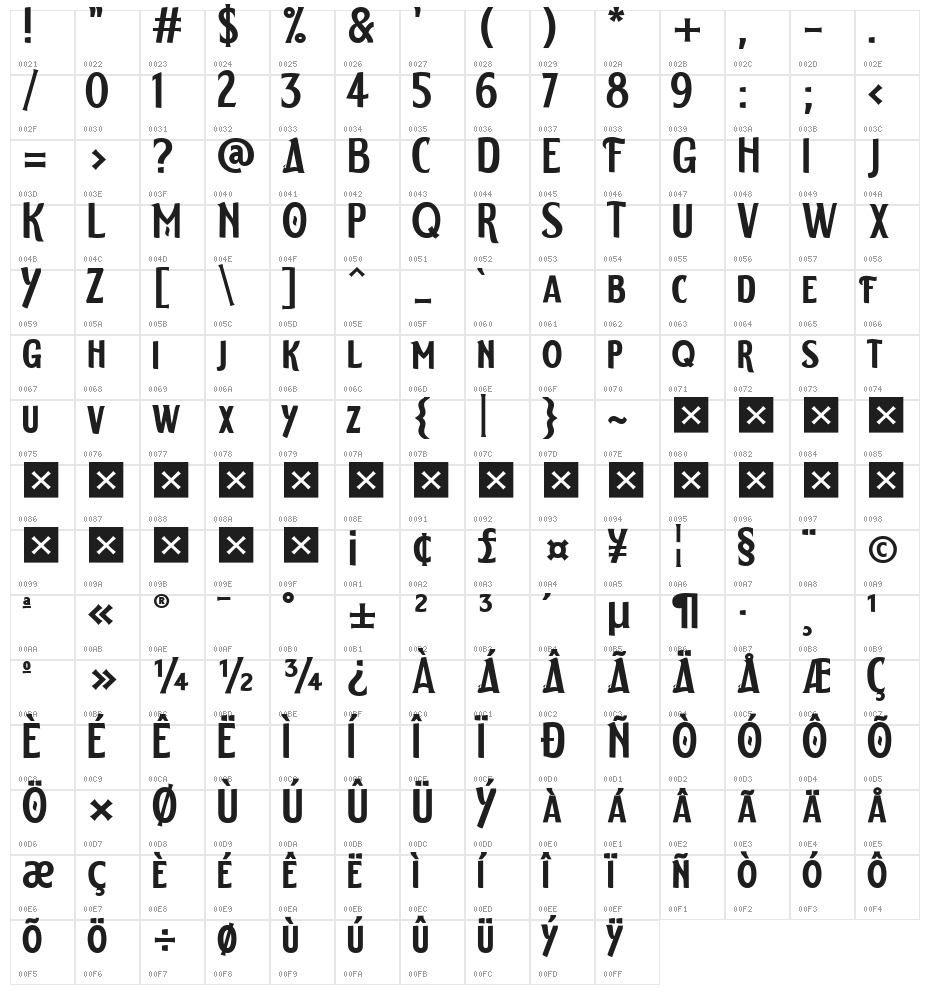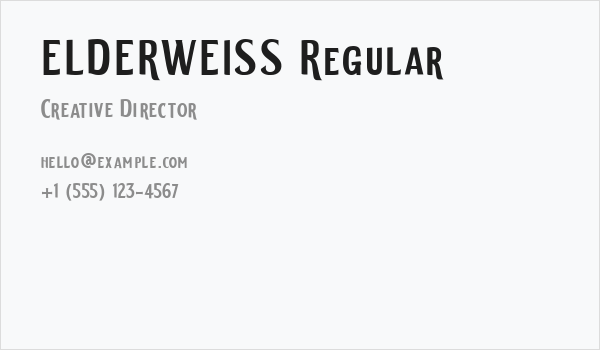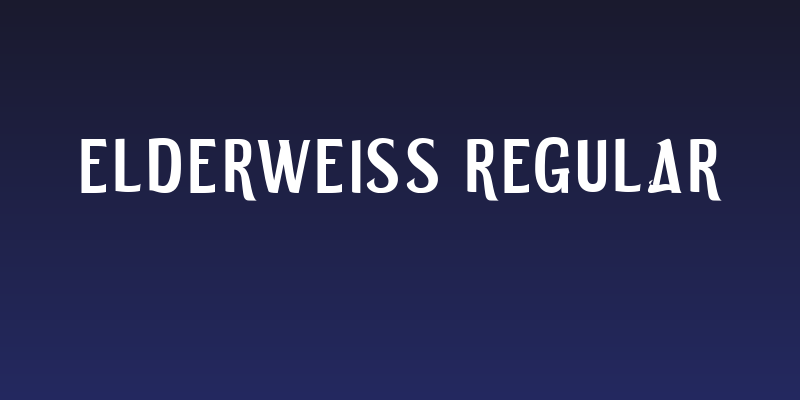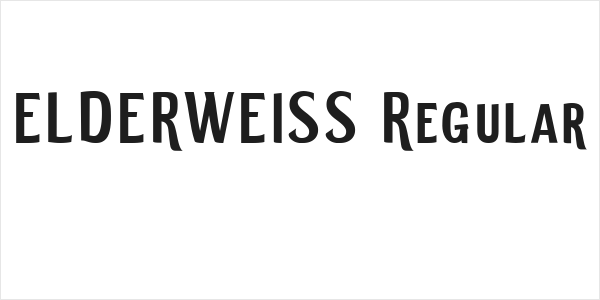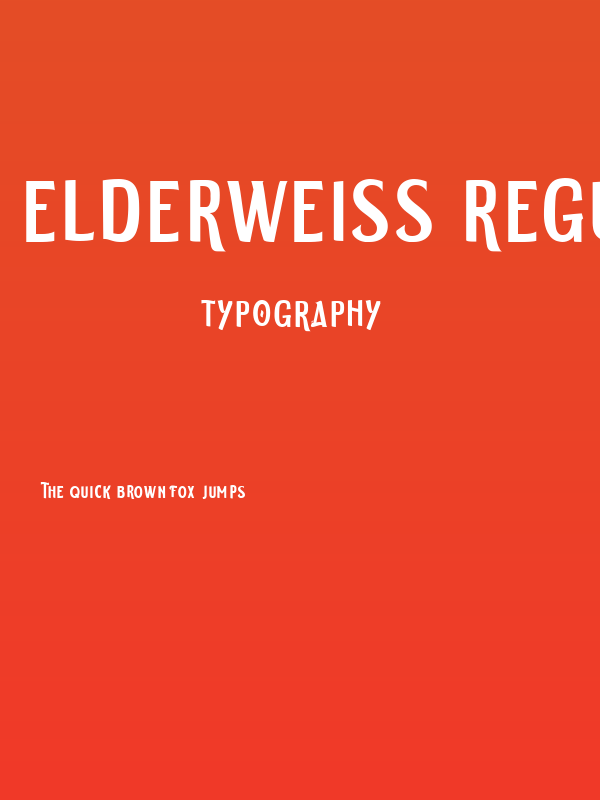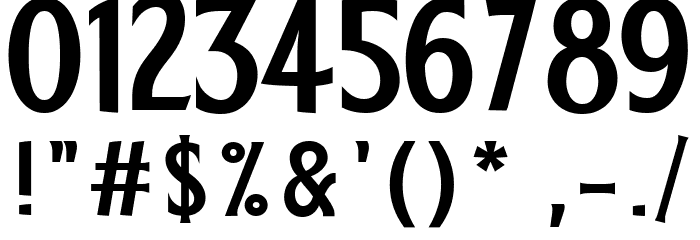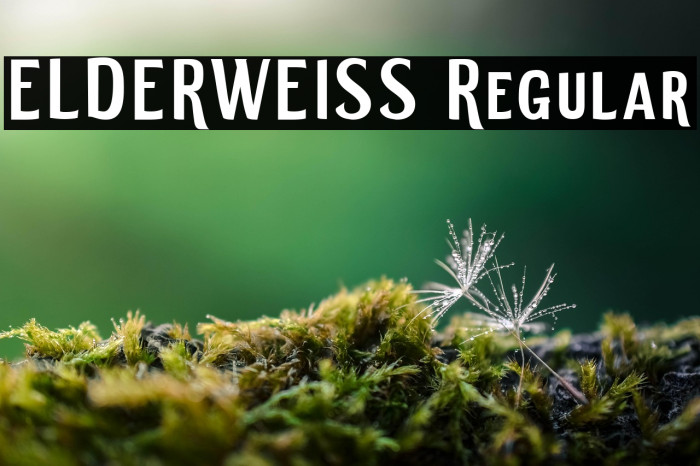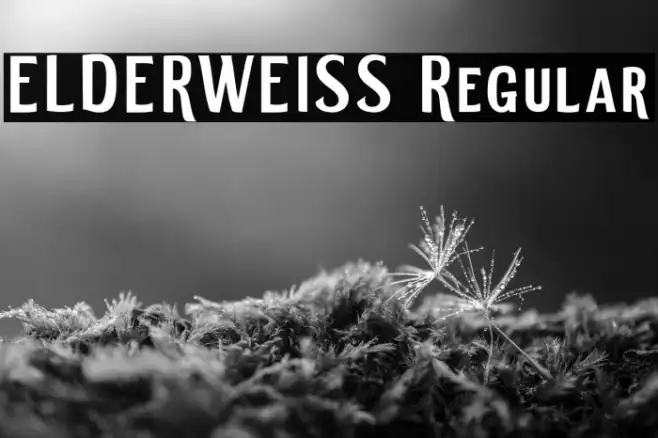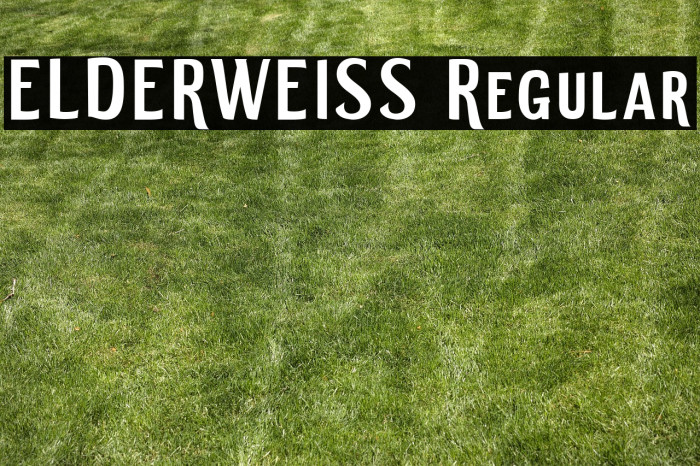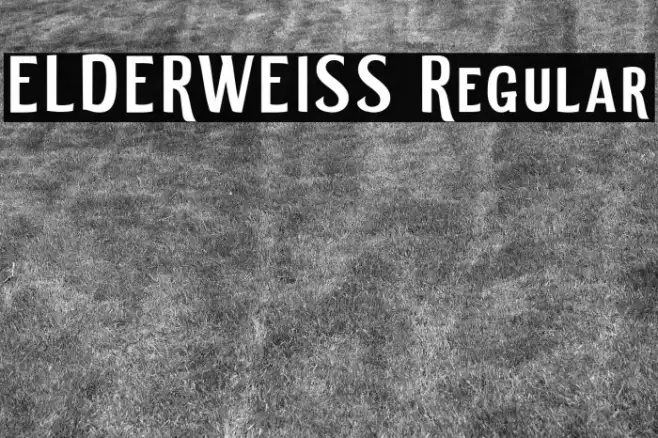
ELDERWEISS Regular Font
ELDERWEISS Regular Description
This font features a bold and dynamic style with a distinctive flair. The characters are slightly condensed, giving it a strong presence while maintaining readability. The uppercase letters have a unique, angular design that adds a touch of modernity and creativity. The lowercase letters complement the uppercase with a consistent style, maintaining the font's overall boldness. The numbers are clear and legible, matching the font's robust aesthetic. Special characters are well-integrated, ensuring versatility in various design contexts. The font's strong lines and slight curves create a harmonious balance, making it suitable for eye-catching designs.
| Proposed Projects | Ideal for branding, posters, headlines, and any design requiring a strong visual impact. |